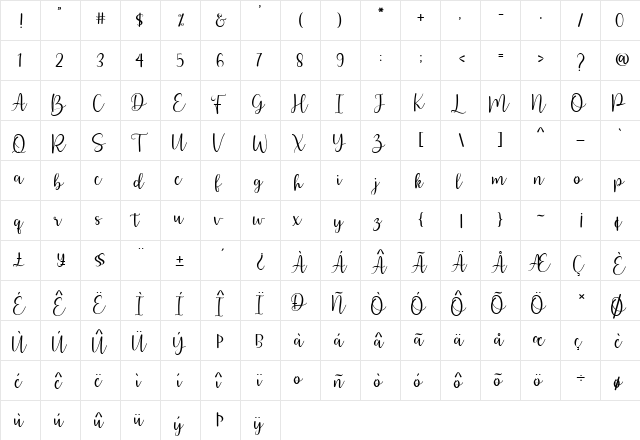
Arbhie Script Regular
Design Context for Arbhie Script Typeface
Arbhie Script brings a calligraphic fluidity to the page — its connecting strokes and expressive curves give it an unmistakably human quality.
Font Pairing: Combine Arbhie Script with a simple geometric sans for maximum contrast — the tension between flowing curves and clean structure is a classic typographic pairing.
Pro Tip: Use Arbhie Script for short runs of text — names, titles, or taglines. Extended body copy in script faces tires the eye quickly.